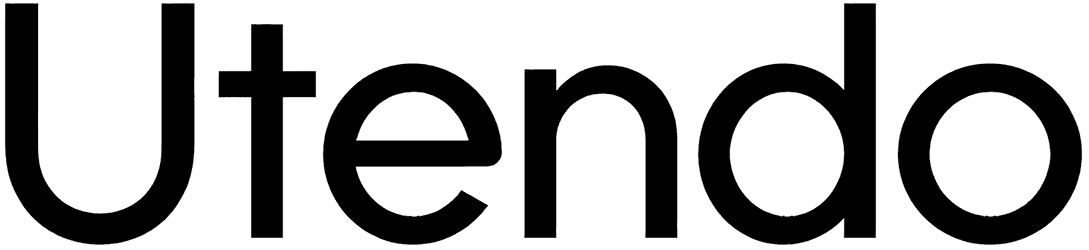
Generica Font
To design logos or advertising posters, you need a font like Generica that conveys a sense of comfort and professionalism to the audience at the same time. Generica is a sans serif font and all characters of this font are designed in two different styles. Using this font can make your website grow and your content more visible.
Generica is our newest font with 2 FREE weights.
Generica exists to help you cross projects off of your daily list and move on. With one super light weight and one super chunky weight (with foreign characters and even some ligatures) you have all of your bases covered. Both weights are available to use for personal or commercial projects absolutely FREE!
Designed by: Michael Muranaka